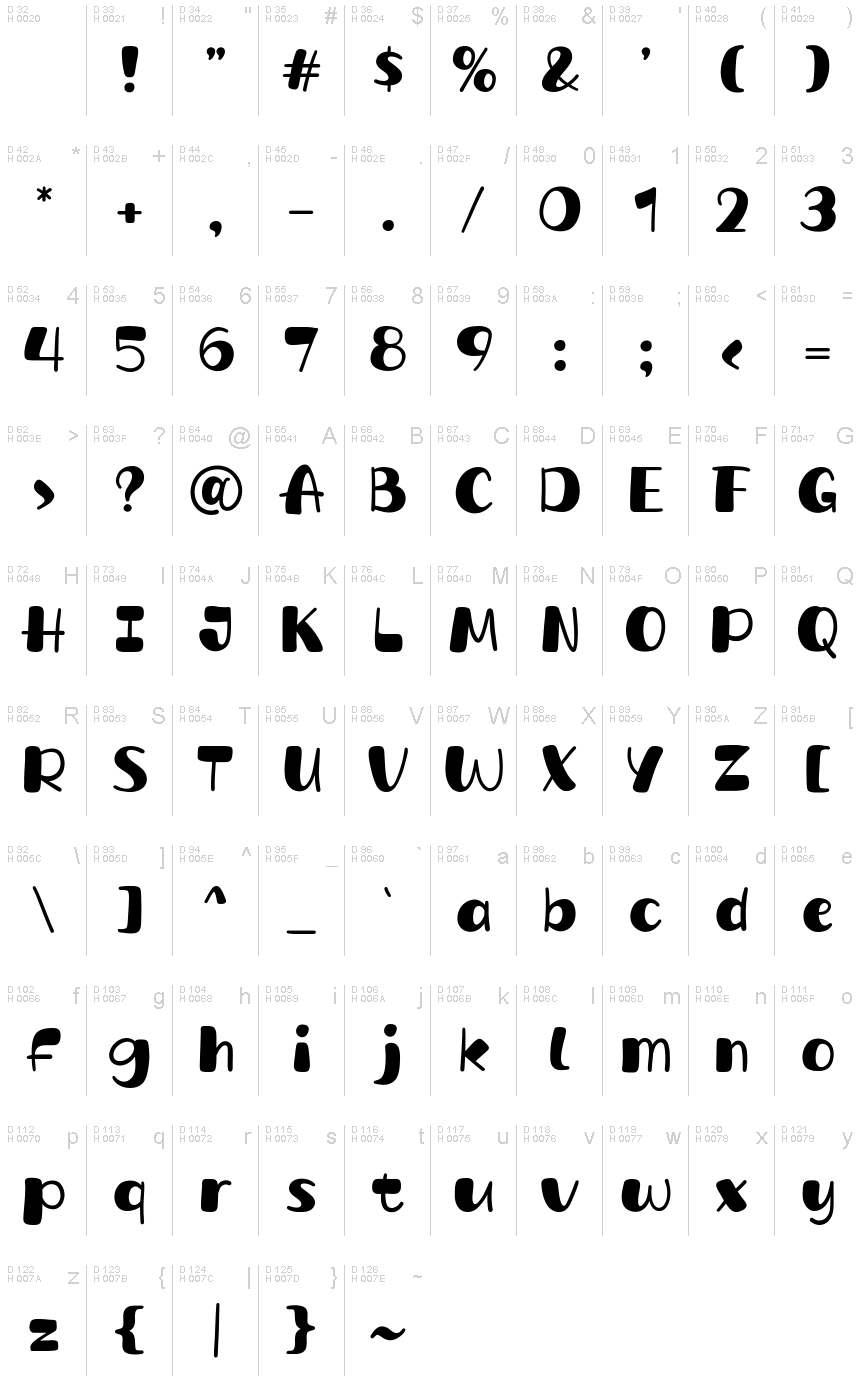
Quicky Story
Quicky Story by Khurasan is a bold, cartoonish display font that exudes playfulness and whimsy. With its rounded, expressive letterforms and dynamic, hand-drawn aesthetic, this font captivates the eye and evokes a sense of childlike wonder. The bold, chunky strokes and playful ligatures lend a lively, energetic quality, making Quicky Story an ideal choice for projects seeking a touch of lighthearted charm.
This versatile font is well-suited for a variety of design applications, from children's books and product packaging to logo designs and branding materials. Its bold, playful personality makes it a standout choice for attention-grabbing headings, playful social media graphics, and eye-catching titles. Whether you're crafting a fun, memorable brand identity or adding a touch of playfulness to your designs, Quicky Story by Khurasan is a font that is sure to delight and engage your audience.